True hand-lettered calligraphy can't be reproduced with plain text, but this generator gets you the closest practical equivalent: flowing Unicode script and blackletter styles that read as 'calligraphy' in a bio, invitation caption, or tattoo mockup.
Combine script with bold script for more weight, or try gothic/fraktur for a more traditional illuminated-manuscript feel.
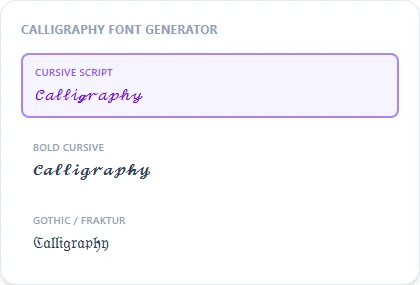
Script vs. gothic: two different calligraphy traditions
Real calligraphy splits roughly into flowing script (think wedding invitations, formal signatures) and blackletter/gothic (think illuminated manuscripts, old newspaper mastheads). This generator's Script and Bold Script styles cover the first; Fraktur and Bold Fraktur cover the second. Neither is a scan of real hand lettering. They're Unicode characters shaped to evoke each tradition, so treat the output as a fast preview, not a final piece of art.
Using calligraphy text for invitations and announcements
Because the output is plain text, it drops straight into a Canva design, an Instagram announcement post, or a text message the same way any other sentence would, with no font file to install and no design software required to get the basic look on screen.
Is this real calligraphy?
No, it's Unicode script characters that visually resemble calligraphy. For genuine hand-lettered artwork you'd need an actual calligrapher or a lettering app.
Which style looks most like wedding invitation calligraphy?
Bold Script and Script are the closest matches; Gothic/Fraktur suits a more formal, old-world look instead.
Can I use this text in a design tool like Canva or Photoshop?
Yes, copy the styled text and paste it into any text box that accepts Unicode; it will render using whatever font the design tool falls back to for that character range.
Does calligraphy-style text support numbers?
Script covers letters only; Fraktur/Gothic also has no dedicated digit set, so numbers in your text stay in the plain style for both — a Unicode limitation, not a bug.